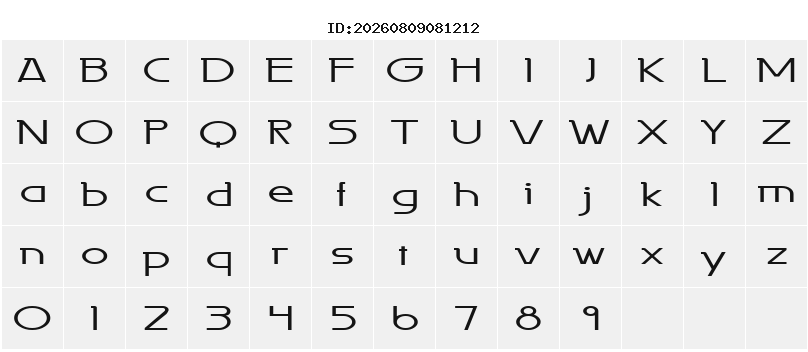
Persia Extended Preview
• Font Name: Persia Extended
• Full Font Name: Persia Extended Normal
About Persia Extended.ttf
Persia Extended.ttf is a modern, elegant sans-serif font designed for ultimate readability and visual harmony. Perfect for branding, headlines, web design, and print materials.